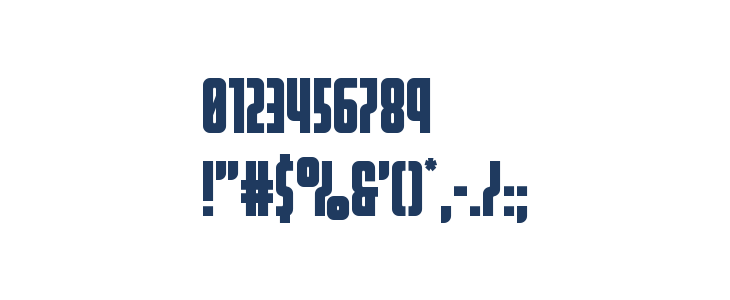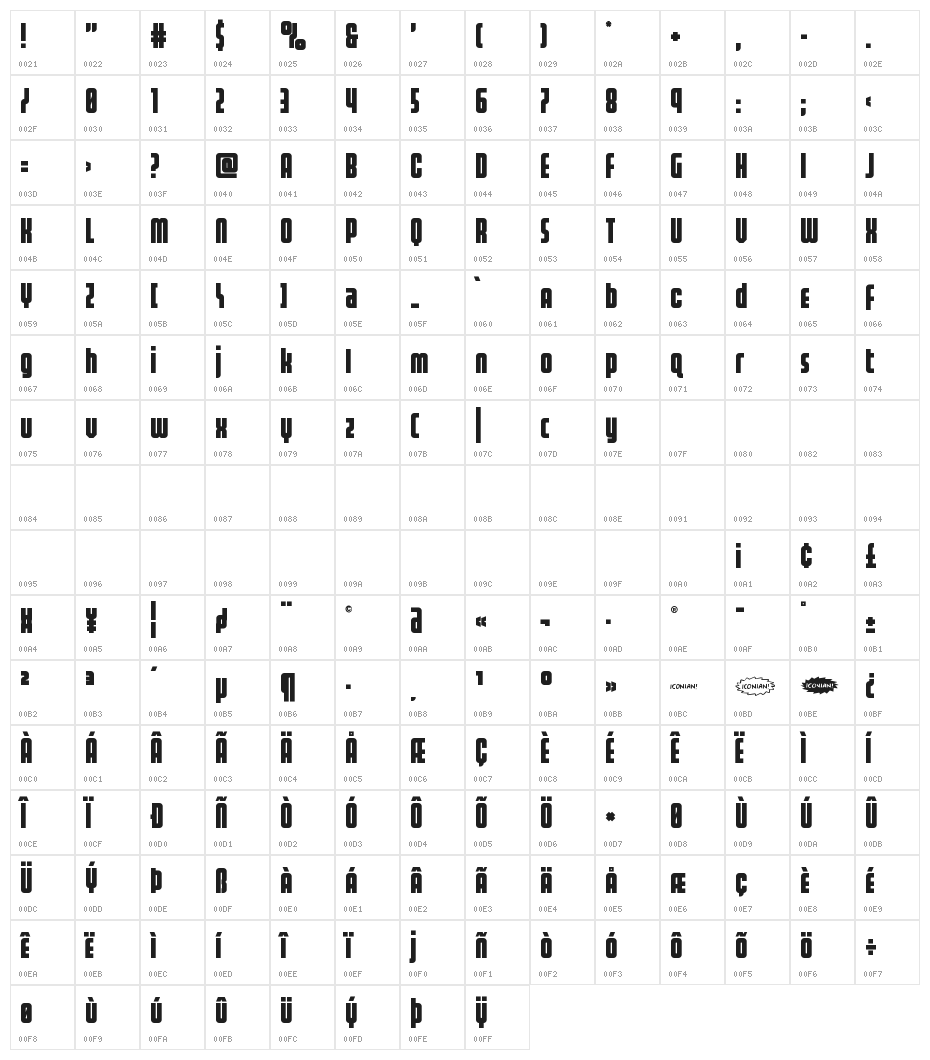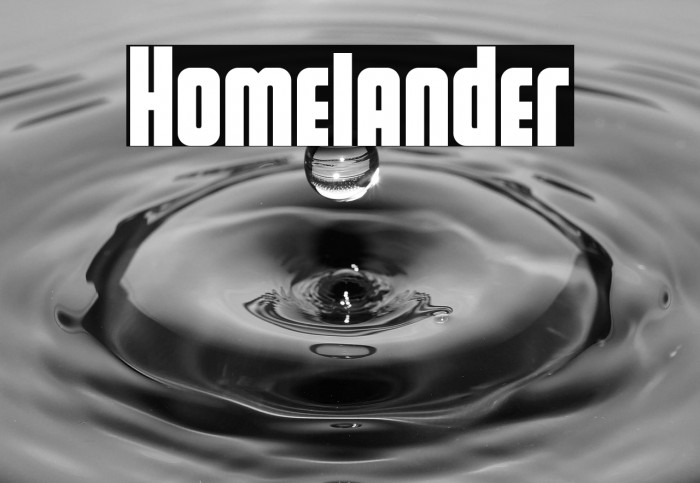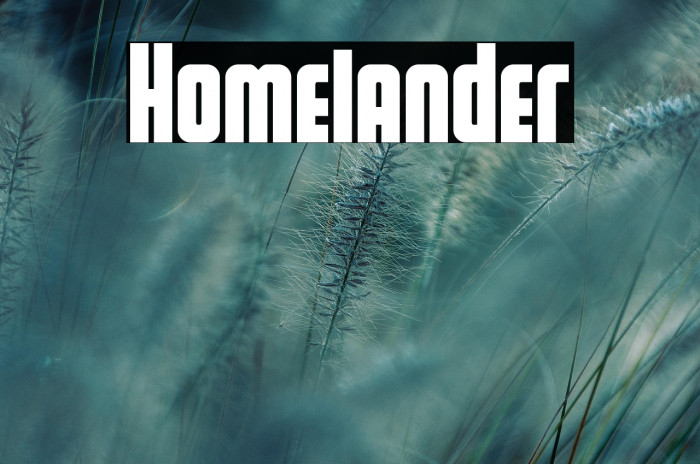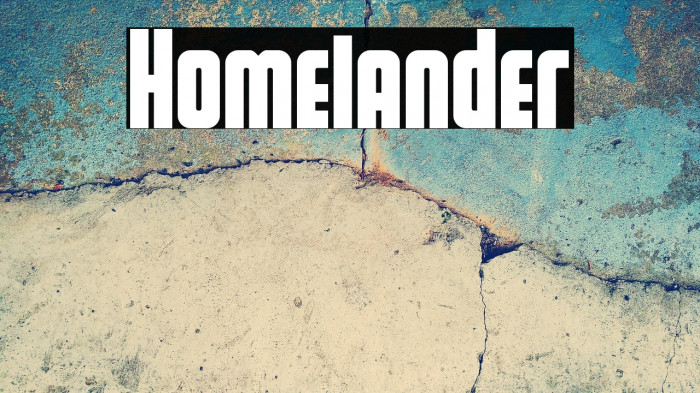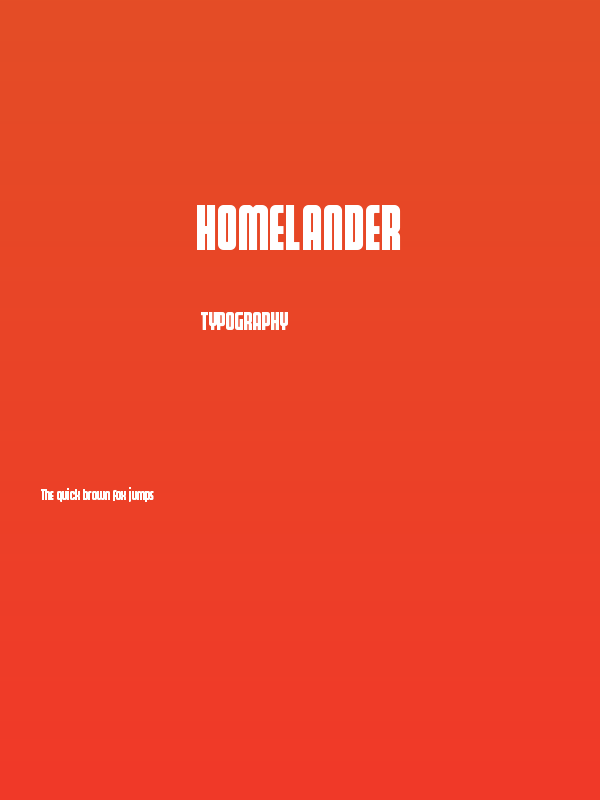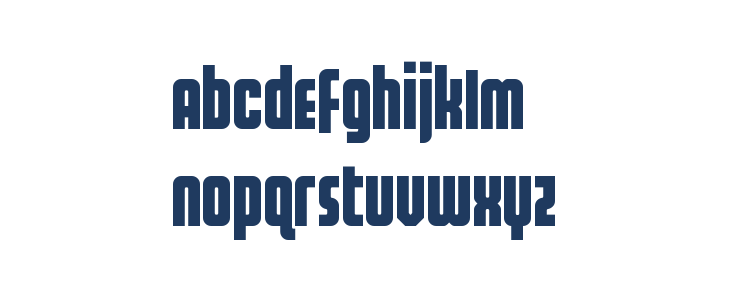
Homelander Font
Homelander Description
This font features a bold and impactful design with strong geometric shapes and a modern aesthetic. The characters are uniformly thick, providing a sense of stability and strength. The uppercase letters are particularly striking, with a consistent height and width that create a cohesive look. The lowercase letters maintain the same boldness, ensuring readability while adding a touch of uniqueness with their slightly rounded edges. Numerals are clear and distinct, matching the overall robust style. Special characters are well-integrated, maintaining the font's bold and modern feel.